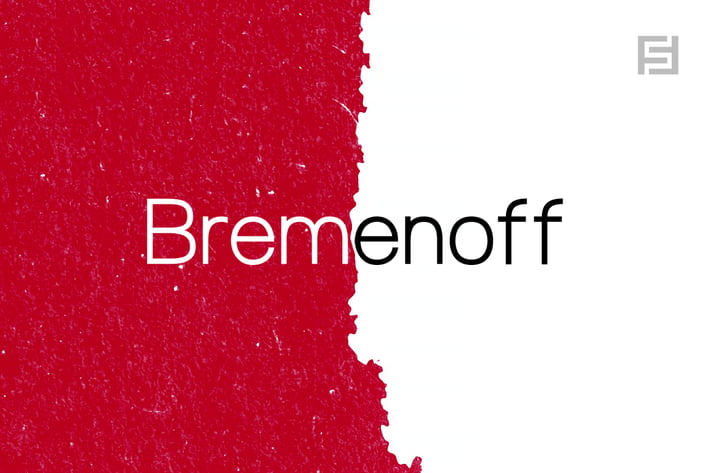
Bremenoff - Simple & Timeless Typeface
Bremenoff is a timeless sans-serif typeface family of 14 fonts, made with simplicity in every aspect of design. Created with a special focus on readability and the finest visual capabilities, this typeface can turn your design projects into something extraordinary.
Handcrafted and designed with powerful OpenType features in mind, each weight includes extended language support including Western European & Central European sets. A total of 289 glyphs are included.
Bremenoff is a perfect choice for graphic design, text presentation, web design, print and display use. The typeface can be an amazing option for beautiful branding, logo / logotype design projects, marketing graphics, banners, posters, signage, corporate identities as well as editorial design. Adding extra letter-spacing for the Caps will make this font perfect for minimal headlines and logotypes as shown in promo images here.
Typeface designed by Designova, produced by Fontastica.